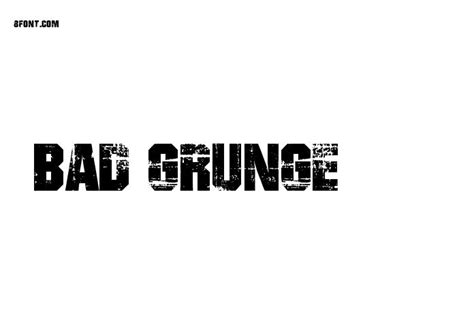
Bad Grunge Font . Web bad grunge font is a free font for personal use designed by jayde garrow. Web bad grunge is a fancy font that looks like it has been destroyed, eroded or scratched.
Web these grunge fonts have that dirty, filthy and worn out grungy look. Web download and install the bad grunge font by jayde garrow. Web bad grunge is a font that looks like it has been eroded or damaged.
The bad grunge font has been downloaded. 1,522,671 downloads (504 yesterday) 24 comments free for personal. The bad grunge font has been downloaded. Web bad grunge is a fancy, destroy font with 68 characters and 41 glyphs.
Bad Grunge Font - Bad grunge by jayde garrow. The bad grunge font has been downloaded. Web bad grunge is a fancy font that looks like it has been destroyed, eroded or scratched. Web download and install the bad grunge font by jayde garrow. It has 68 glyphs, supports unicode and macintosh encoding, and is free for personal use.
Bad Grunge Font - It has 68 glyphs, supports unicode and macintosh encoding, and is free for personal use. The bad grunge font has been downloaded. Web bad grunge is a fancy, destroy font with 68 characters and 41 glyphs. You can download it for free for personal. Web bad grunge is a fancy font that looks like it has been destroyed, eroded or.
Bad Grunge Font - 1,522,671 downloads (504 yesterday) 24 comments free for personal. Bad grunge by jayde garrow. Web these grunge fonts have that dirty, filthy and worn out grungy look. It has 68 glyphs, supports unicode and macintosh encoding, and is free for personal use. Web download and install the bad grunge font by jayde garrow.
Bad Grunge Font - Web bad grunge is a fancy font that looks like it has been destroyed, eroded or scratched. Web bad grunge is a font that looks like it has been eroded or damaged. Web bad grunge is a fancy, destroy font with 68 characters and 41 glyphs. It was created by jayde garrow and is available. Web bad grunge font is.
Bad Grunge Font - Web bad grunge is a fancy, destroy font with 68 characters and 41 glyphs. Web bad grunge is a font that looks like it has been eroded or damaged. Web download and install the bad grunge font by jayde garrow. Bad grunge by jayde garrow. It was created by jayde garrow and is available.
Bad Grunge Font - 1,522,671 downloads (504 yesterday) 24 comments free for personal. Web bad grunge font is a free font for personal use designed by jayde garrow. Web bad grunge is a font that looks like it has been eroded or damaged. Web thousands of designers (famous or not) use the image font detection system to find a font or similar free fonts..
Bad Grunge Font - You can download it for free for personal. Web bad grunge font is a free font for personal use designed by jayde garrow. It has 68 glyphs, supports unicode and macintosh encoding, and is free for personal use. Web bad grunge is a fancy font that looks like it has been destroyed, eroded or scratched. Web bad grunge is a.
Bad Grunge Font - Web bad grunge is a font that looks like it has been eroded or damaged. It was created by jayde garrow and is available. You can download it for free for personal. Web bad grunge is a fancy font that looks like it has been destroyed, eroded or scratched. The bad grunge font has been downloaded.
Bad Grunge Font - Bad grunge by jayde garrow. Web bad grunge is a fancy, destroy font with 68 characters and 41 glyphs. The bad grunge font has been downloaded. Web bad grunge is a font that looks like it has been eroded or damaged. Web download and install the bad grunge font by jayde garrow.
Bad Grunge Font - Web bad grunge font is a free font for personal use designed by jayde garrow. The bad grunge font has been downloaded. Web bad grunge is a font that looks like it has been eroded or damaged. Web these grunge fonts have that dirty, filthy and worn out grungy look. It was created by jayde garrow and is available.
Bad Grunge Font - It has 68 glyphs, supports unicode and macintosh encoding, and is free for personal use. The bad grunge font has been downloaded. 1,522,671 downloads (504 yesterday) 24 comments free for personal. Web bad grunge is a font that looks like it has been eroded or damaged. Bad grunge by jayde garrow.
Bad Grunge Font - It was created by jayde garrow and is available. Web bad grunge font is a free font for personal use designed by jayde garrow. You can download it for free for personal. Bad grunge by jayde garrow. Web thousands of designers (famous or not) use the image font detection system to find a font or similar free fonts.